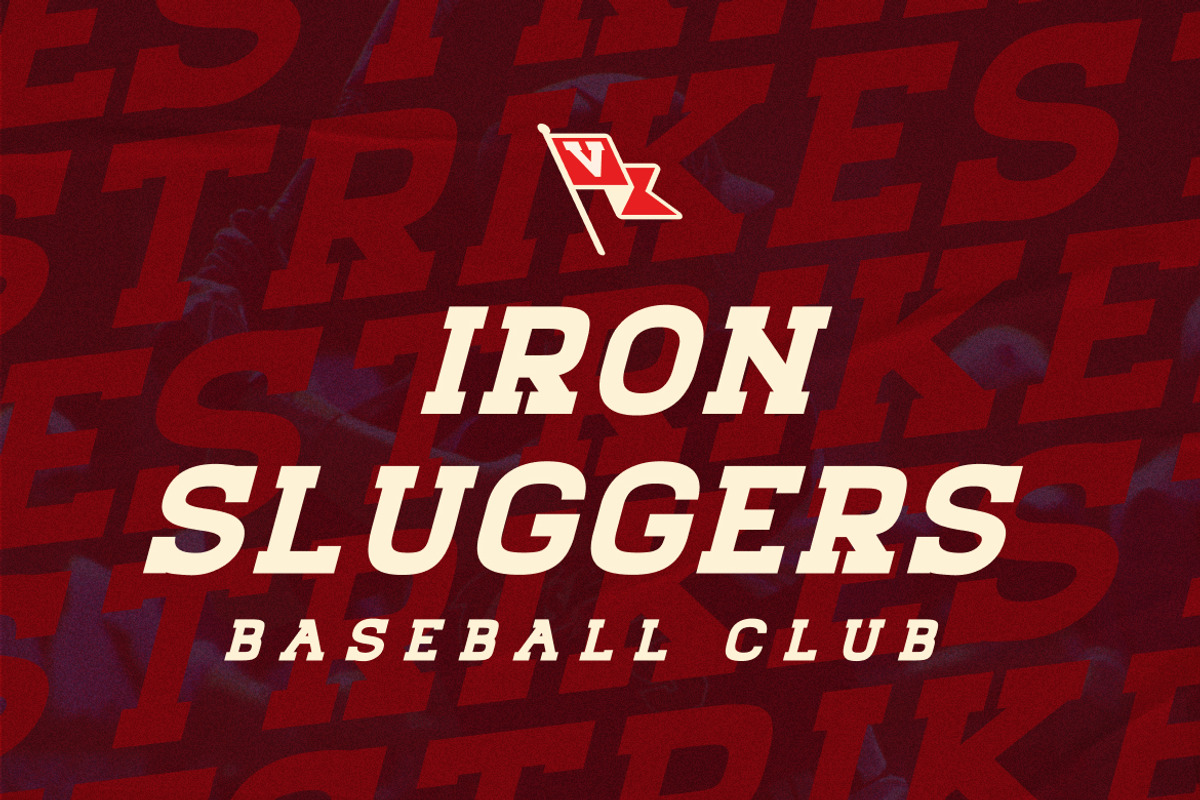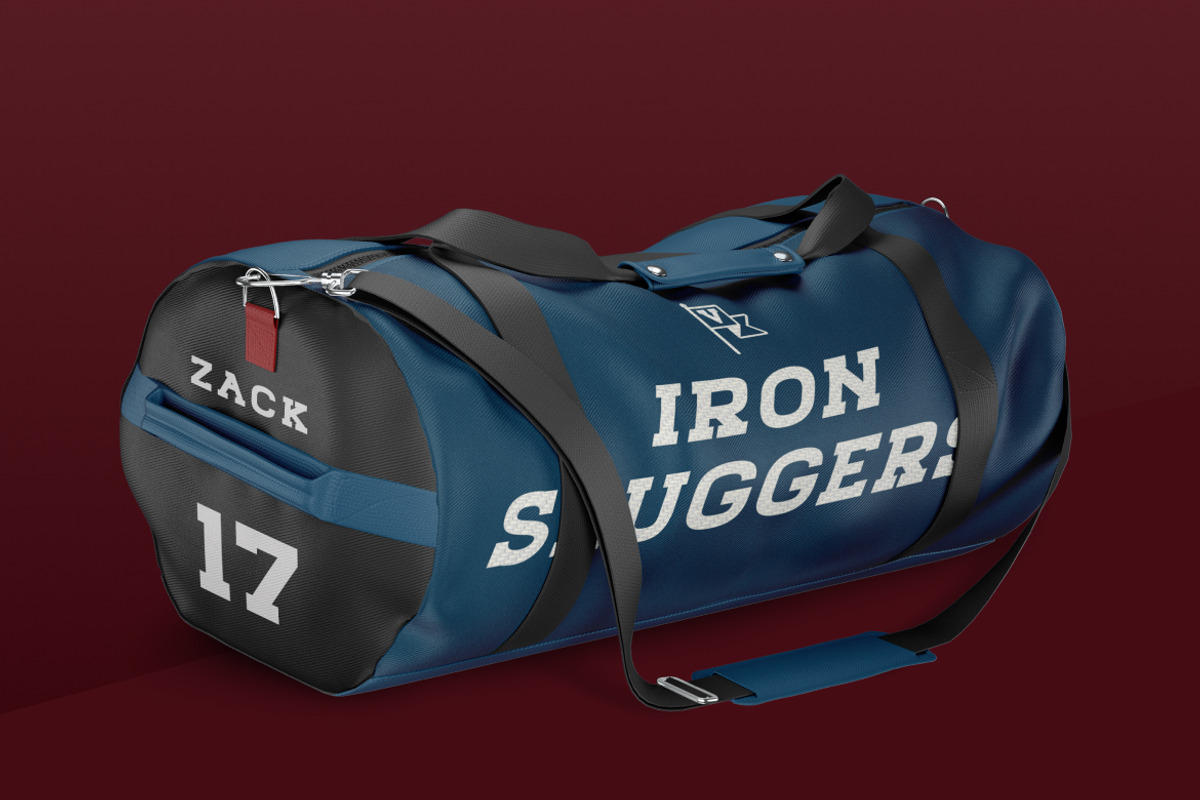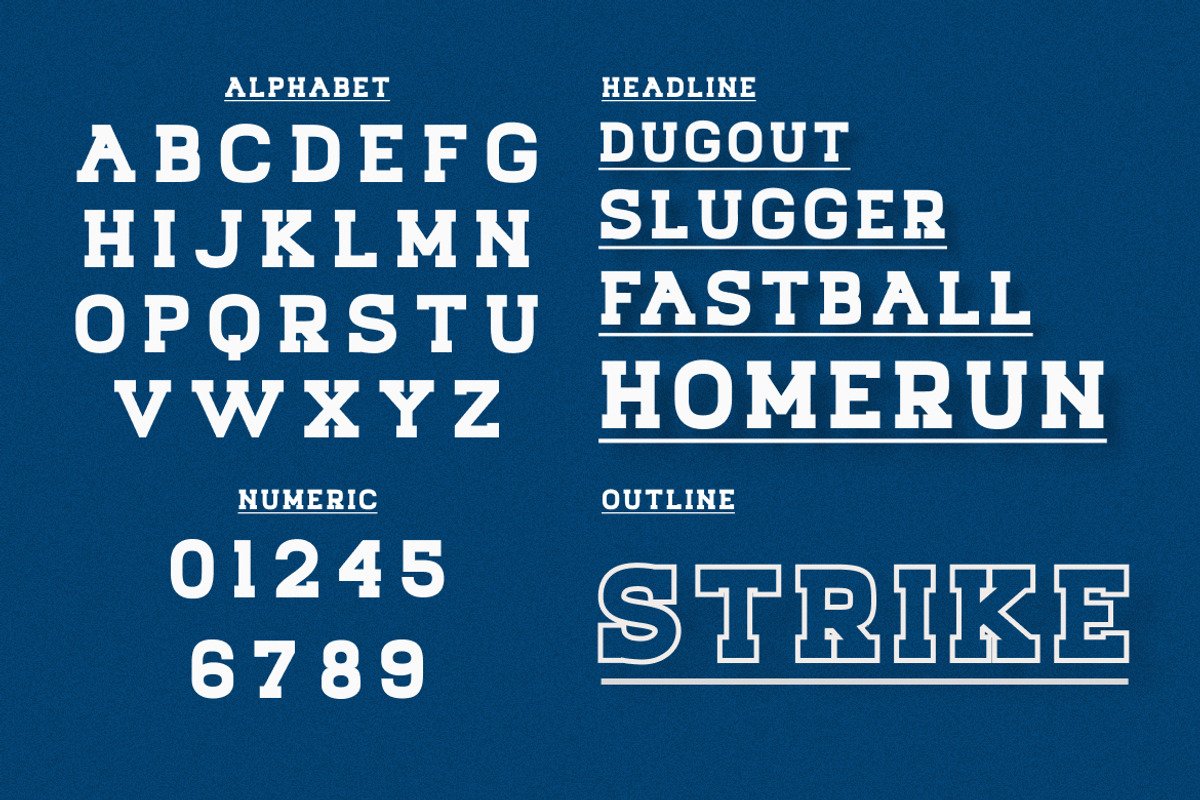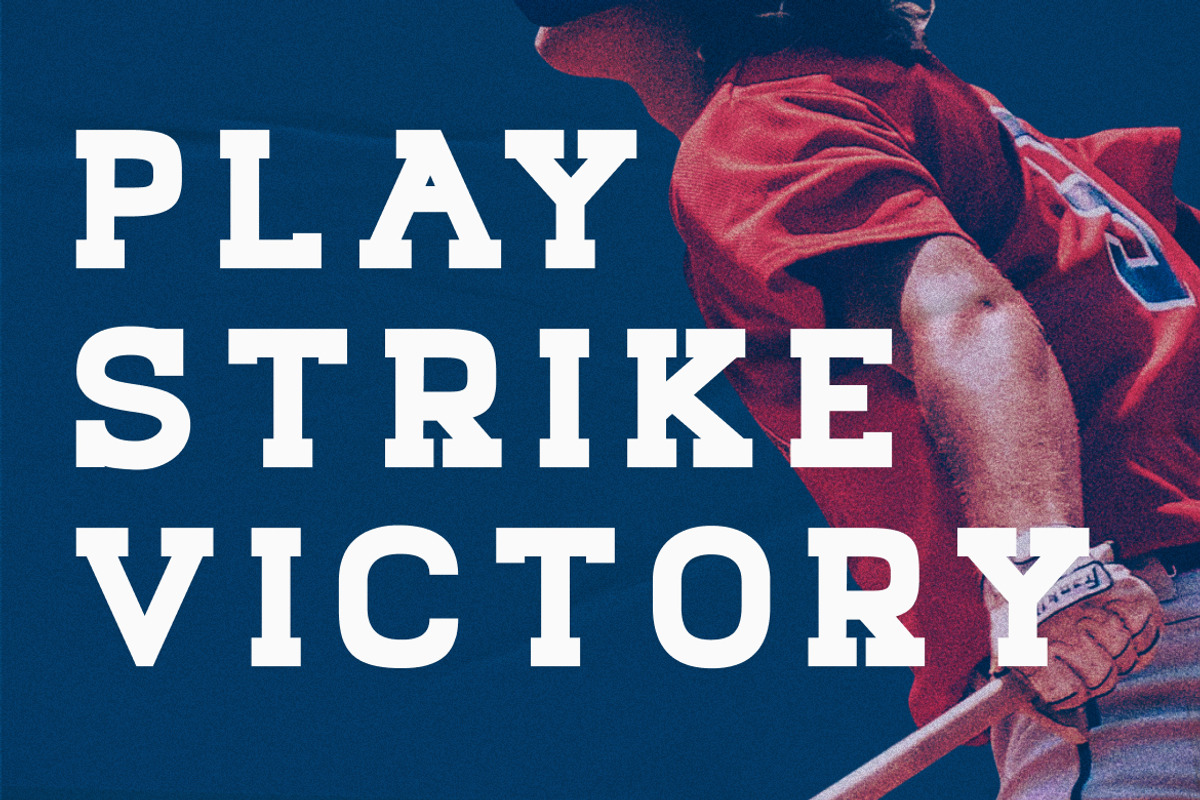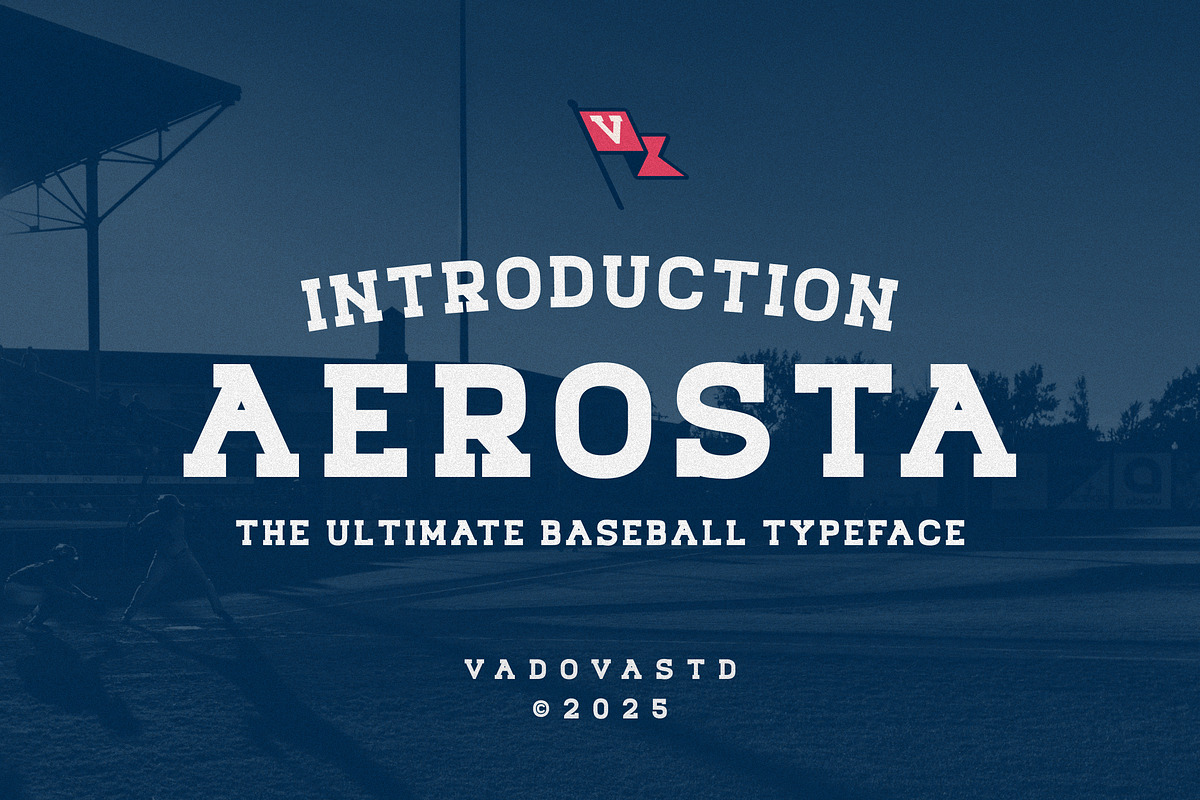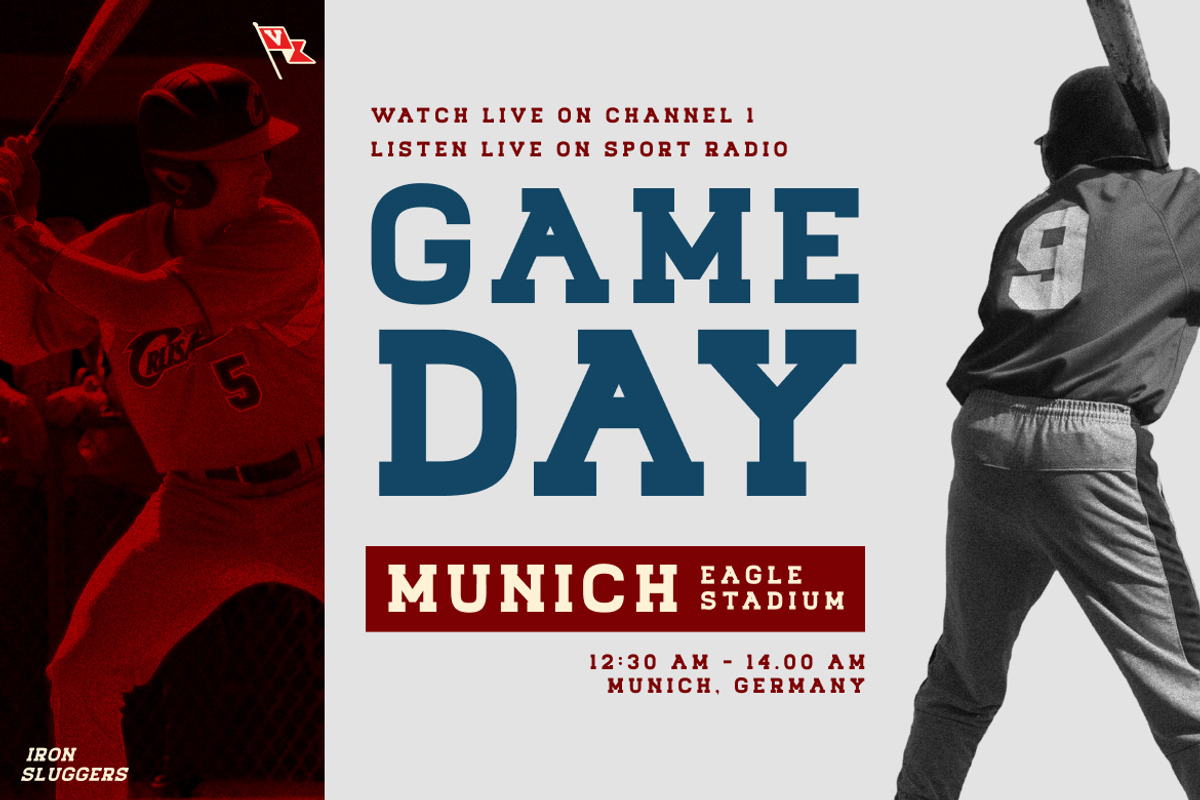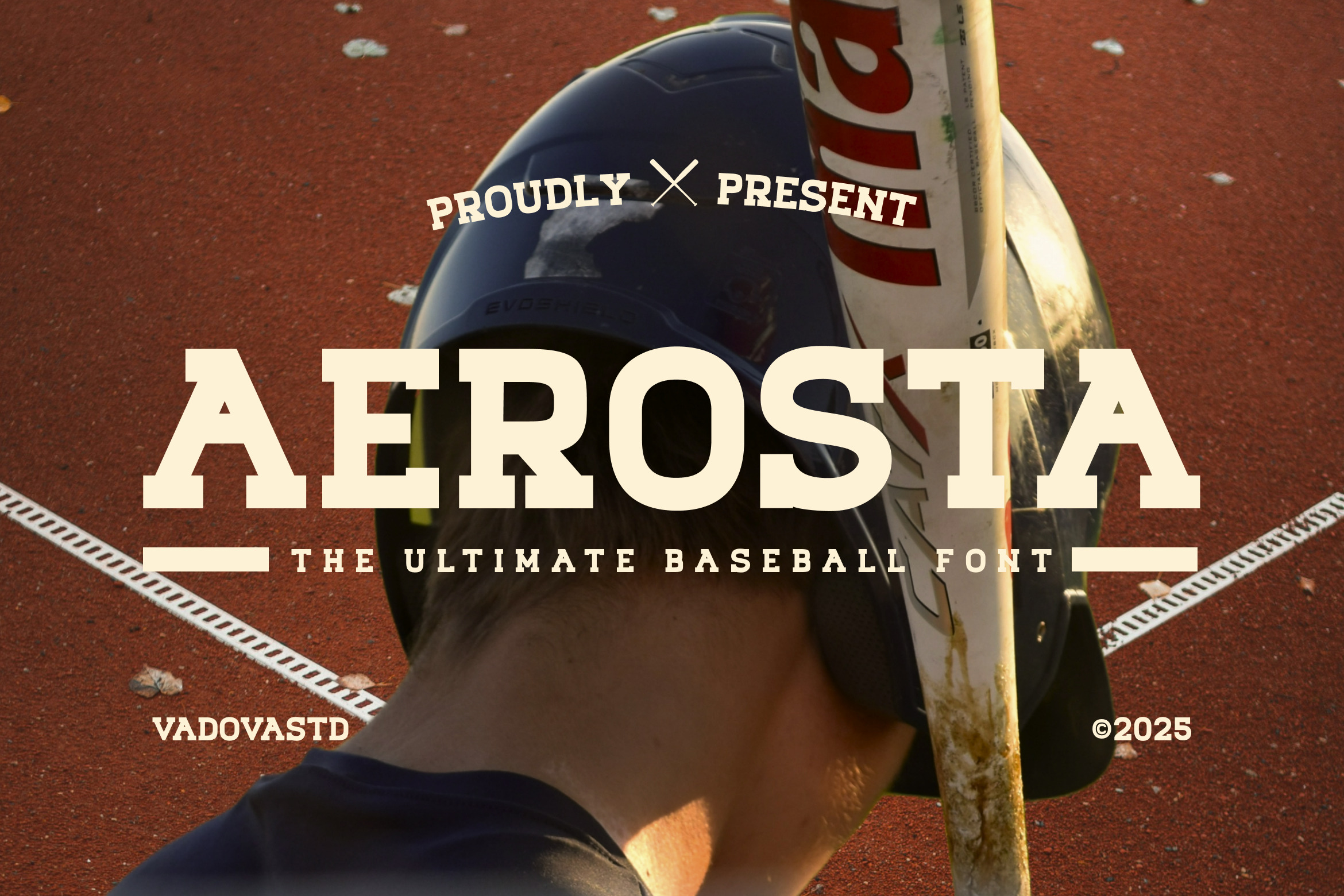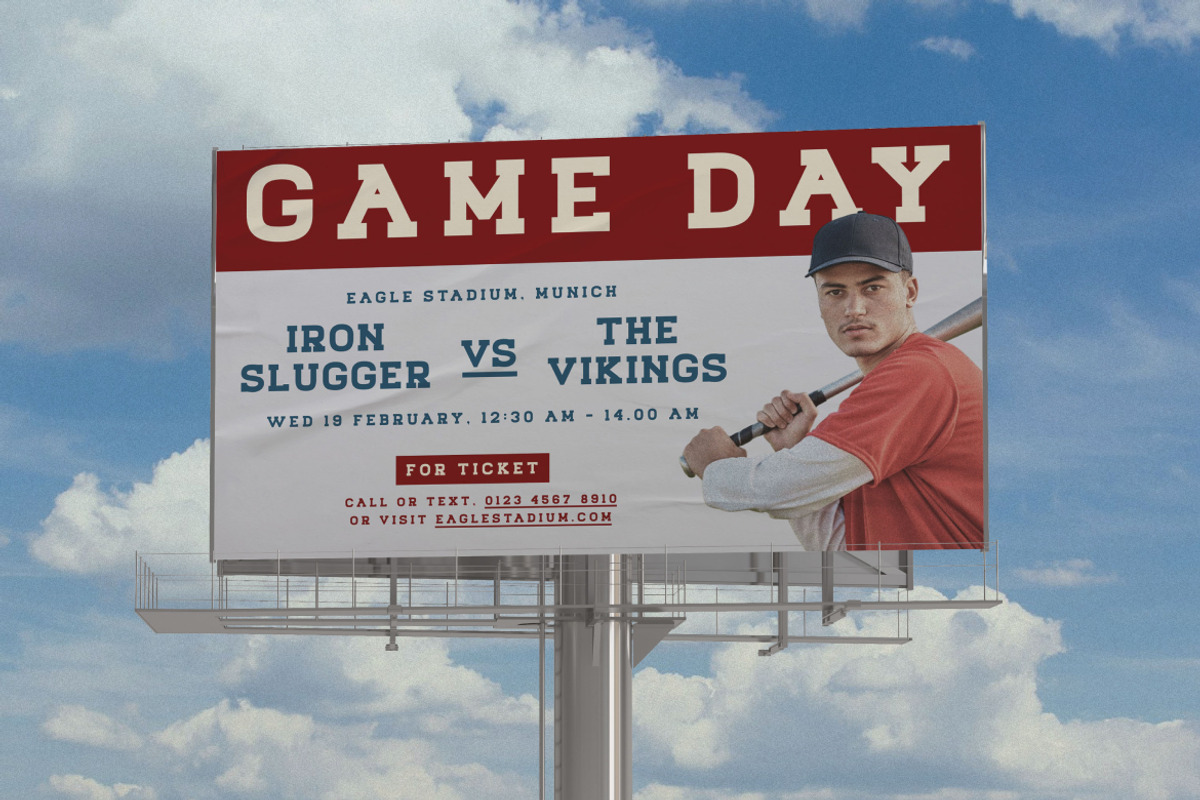
Aerosta - Slab Serif Display Font
Aerosta is a bold sporty slab serif typeface crafted to capture the spirit of classic American baseball. With its strong blocky serifs and retro athletic vibe, Aerosta delivers energy, tradition, and team pride in every letter. Perfect for jerseys, sports branding, varsity logos, and vintage posters, this font channels the timeless look of athletic typography.
Why Choose Aerosta:
Baseball-inspired design with bold slab serifs
Retro varsity style that radiates tradition and strength
High-impact letters perfect for jerseys and team logos
Versatile typeface for sports branding and promotional graphics
Baseball team logos & player jerseys
Athletic apparel & merchandise design
Sports event posters & flyers
Varsity and collegiate branding
Vintage-inspired sports graphics
Gaming & e-sports team identities
Bold slab serif display style
All caps athletic lettering
Retro collegiate vibe with modern usability
Strong readability in large-scale designs
Inspired by classic baseball and varsity sports
Bring the energy of the ballpark into your designs with Aerosta, a typeface that blends strength, heritage, and athletic pride.